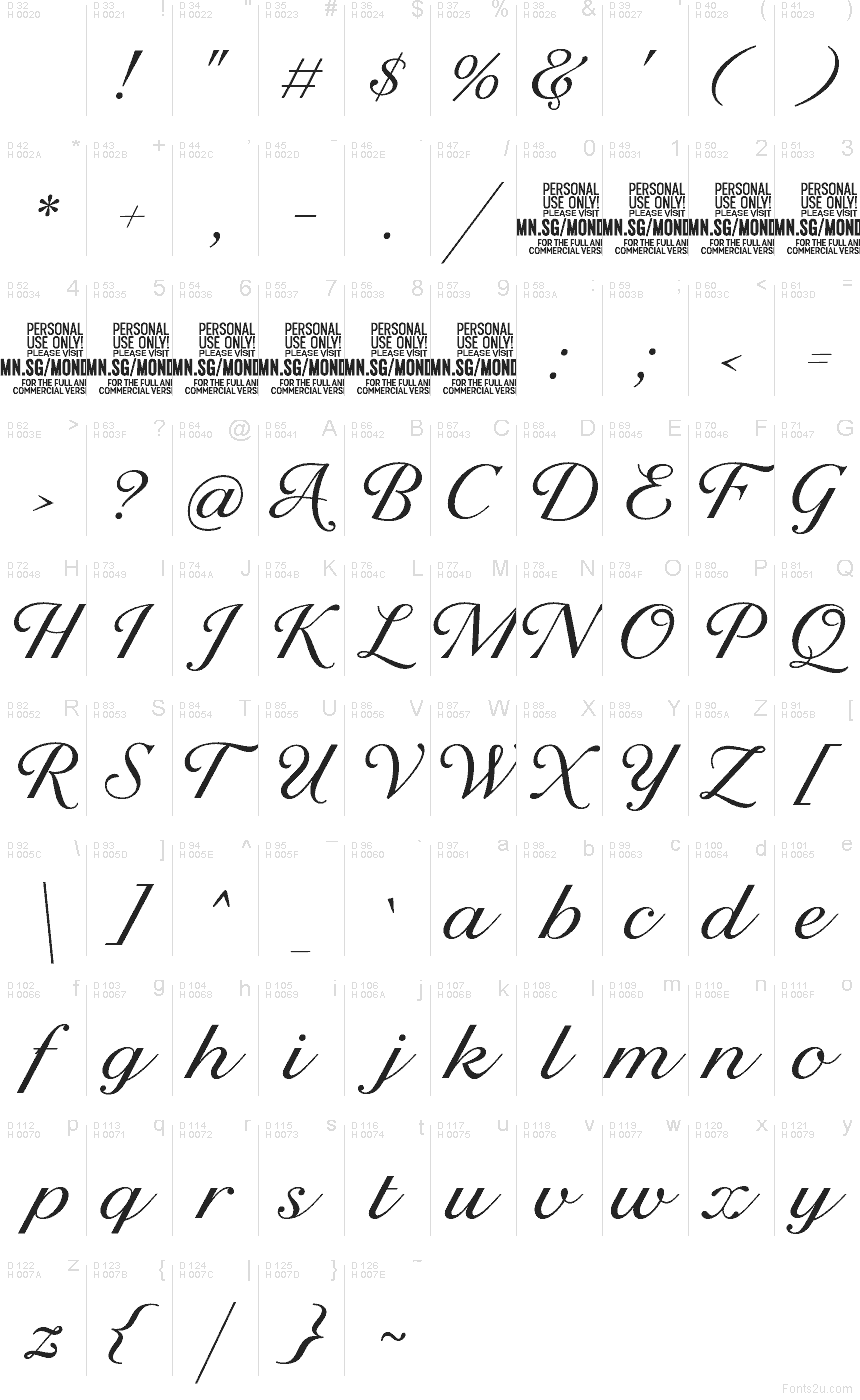
Mondira Script PERSONAL USE Regular
Mondira Script font by Mans Greback of Mans Greback AB is a free calligraphy script typeface with long, silky strokes and hairline curves that feel like fresh ink pulled by a pointed nib. Its letters sweep forward with confident slant, then finish in airy loops that add drama without turning messy.
Using Mondira Script, you’ll get graceful impact on wedding invitations, luxury branding, beauty packaging, boutique logos, editorial pull quotes, certificates, and romantic social posts. Keep it breathing—use generous tracking and let the flourishes be the hero. Pair this free font with a quiet sans like Montserrat or a light serif for supporting text.